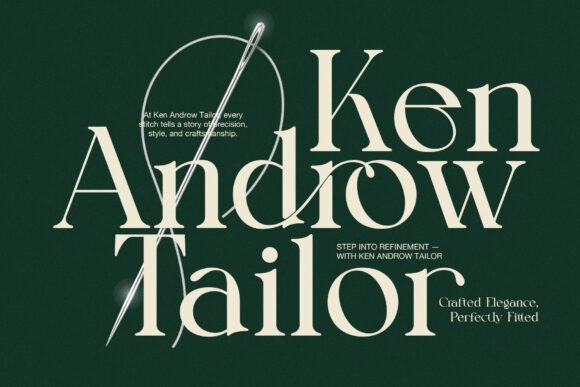
Introducing Grigane Elegant Serif Font: Elevate Your Designs with Sophistication and Uniqueness
In the world of typography, a font can make all the difference in the success of a design project. A well-crafted font can elevate your creative work, adding a touch of sophistication and elegance that sets it apart from the rest. This is where Grigane Elegant Serif Font comes in – a refined and modern typeface designed to infuse your designs with a fresh, luxurious feel. In this article, we’ll explore the features and benefits of Grigane, and how it can be used to enhance a wide range of design projects.
Key Features of Grigane Elegant Serif Font
- Meticulously crafted serifs: Grigane’s serifs are carefully designed to add a touch of elegance and sophistication to your designs.
- Timeless letterforms: The font’s letterforms are classic and timeless, ensuring that your designs will remain stylish for years to come.
- Sleek elegance: Grigane’s sleek and elegant design makes it perfect for creating impactful logos, branding materials, and polished websites.
- Highly readable: Despite its elegant design, Grigane is highly readable, making it perfect for use in a wide range of design projects.
Design Applications for Grigane Elegant Serif Font
Grigane Elegant Serif Font is a versatile typeface that can be used in a wide range of design applications. Here are some of the ways you can use Grigane to elevate your designs:
- Logos and branding: Grigane’s sleek elegance makes it perfect for creating impactful logos and branding materials that demand attention.
- Websites: The font’s highly readable design ensures that your website will be easy to read and navigate, while its elegant style adds a touch of sophistication.
- Print materials: Grigane excels in print formats, enhancing magazines, advertisements, product packaging, and layout designs with its distinctive yet highly readable style.
- Food branding: Grigane’s elegant yet modern flair makes it perfect for food branding, adding an air of sophistication and charm to your designs.
- High-end products: The font’s luxurious feel makes it ideal for high-end products, such as luxury watches, jewelry, and fashion accessories.
- Corporate identities: Grigane’s unique character adds an air of sophistication and charm to corporate identities, making it perfect for businesses that want to make a lasting impression.
The Benefits of Using Grigane Elegant Serif Font
So why choose Grigane Elegant Serif Font for your design projects? Here are some of the benefits of using this versatile typeface:
- Elegance and sophistication: Grigane adds a touch of elegance and sophistication to your designs, setting them apart from the rest.
- Versatility: The font’s highly readable design and elegant style make it perfect for use in a wide range of design applications.
- Memorability: Grigane’s unique character ensures that your designs will be memorable, making a lasting impression on your audience.
- Professionalism: The font’s elegant yet modern flair elevates your designs to a new level of professionalism, making it perfect for businesses and individuals who want to make a lasting impression.
Tips for Using Grigane Elegant Serif Font
Here are some tips for using Grigane Elegant Serif Font in your design projects:
- Use it sparingly: Grigane’s elegant design can be overwhelming if used excessively. Use it sparingly to add a touch of sophistication to your designs.
- Pair it with other fonts: Grigane can be paired with other fonts to create a unique and visually appealing design.
- Experiment with different sizes: Grigane’s highly readable design ensures that it will be clear and legible at a wide range of sizes.
- Pay attention to kerning: Make sure to pay attention to kerning when using Grigane, as it can affect the overall appearance of your design.
In conclusion, Grigane Elegant Serif Font is a refined and modern typeface that can elevate your designs with its elegant and sophisticated style. Its versatility, readability, and unique character make it perfect for use in a wide range of design applications, from logos and branding to websites and print materials. Whether you’re designing for upscale businesses, creating eye-catching product labels, or working on exclusive magazines, Grigane ensures your designs radiate elegance and class.
Final Thoughts
With its balanced, graceful design, Grigane Elegant Serif Font is the ideal choice for anyone looking to make a lasting impression. Its seamless blend of contemporary style and timeless beauty will enhance your creative projects, making them not only visually stunning but also memorable. So why wait? Download Grigane Elegant Serif Font today and take your designs to a new level of sophistication and elegance.